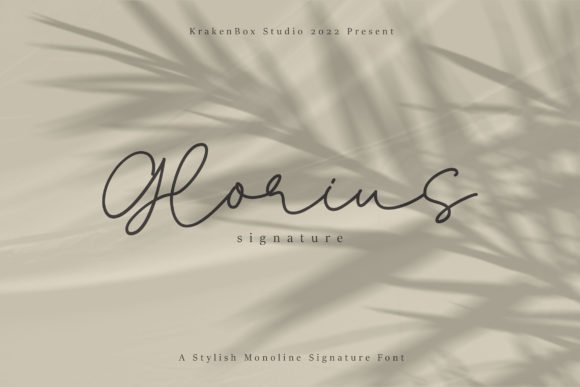
That’s exactly what the Glorius Font is designed to do – spark creativity and elevate your designs to new heights. This sophisticated signature-style script font boasts its own unique curves and an elegant inky flow, giving your designs a classy and modern look that’s sure to impress.
Whether you’re a seasoned designer or just starting out, the Glorius Font is a valuable tool in your creative arsenal. Its versatility and timeless charm make it a perfect addition to any design project, from elegant wedding invitations to modern branding materials.
Glorius Font Key Features
- Unique Characteristics: This font features a unique blend of modern and elegant design elements, with subtle flair and intricate details that add a touch of sophistication to any text.
- Kerning and Ligatures: The font includes carefully crafted kerning pairs and ligatures, ensuring smooth text rendering and professional-looking typography.
Glorius Font Review
I recently had the chance to work with the Glorius Font, and I must say it’s been an interesting experience. Here are my thoughts:
- ✨ Elegant and modern design: The Glorius Font has a sleek, contemporary feel that can elevate any digital product or design.
- ✨ Highly customizable: With various weight options and a range of styles, the font is perfect for designers who want to add some personality to their work.
- ✨ Smooth and readable: The font’s lines and curves are well-designed, making it easy to read and use in body text and headings.
- ⚠️ Limited language support: I found that the font doesn’t support some languages, which can be a limitation for global brands and designers.
- ⚠️ Not ideal for small text: While the font is readable, it’s not the best choice for small text or titles, as the lines and curves can become too thin and difficult to read.
Overall, I think the Glorius Font is a great choice for designers who want a modern and elegant look. While it has some limitations, its customization options and readability make it a valuable addition to any design toolkit. With some careful consideration and planning, the Glorius Font can be a great asset for your next design project.
Tips for Getting the Most Out of Glorius Font
To get the most out of Glorius Font, consider the following tips:
- Use Glorius Font in combination with other bold and elegant fonts for a unique look.
- Use Glorius Font in headings and titles to create a clear hierarchy of information.
Glorius Font is commonly used in:
- Design a background with a mix of green and brown textures to represent the forest.
- Use Glorius Font to create a phrase or a quote related to nature, such as “Get Lost in the Woods” or “Nature’s Symphony”.
- Experiment with different font sizes, colors, and styles to add depth and visual interest.
- Pair Glorius Font with hand-drawn illustrations of trees, flowers, and animals to create a whimsical atmosphere.
- Use a combination of bold and cursive fonts to add contrast and visual interest.
- Experiment with layering and blending modes to achieve a dreamy, ethereal effect.